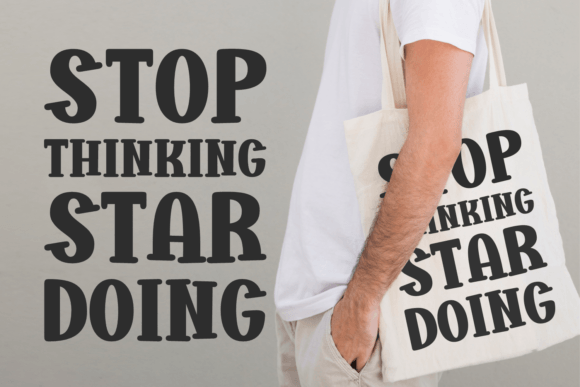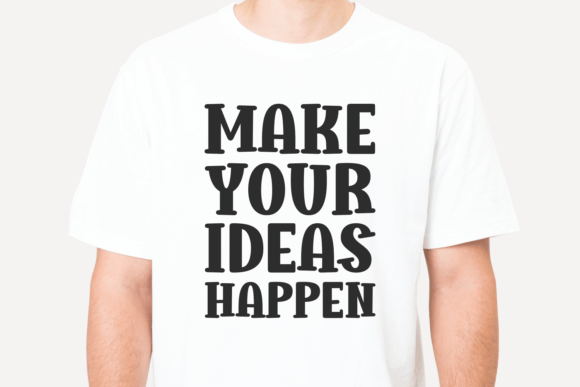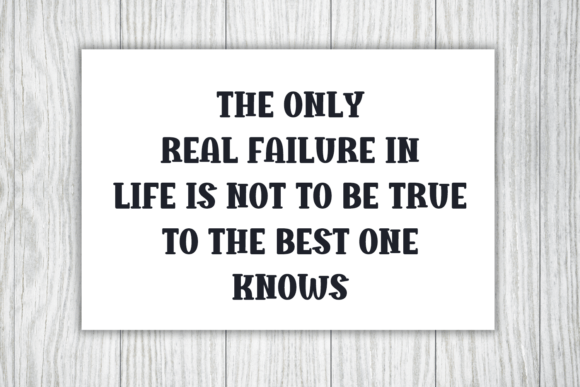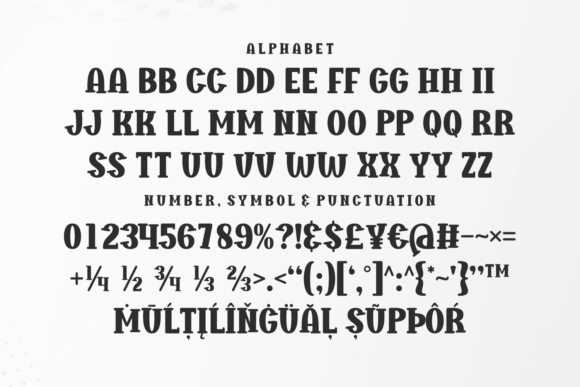
Unleash Your Artistic Flair with Handmade Capital: A Whimsically Robust Slab Serif Font
In the world of typography, a font can make or break a design. It’s the perfect blend of form and function, aesthetics and readability. For designers and crafters looking to add a dash of personality to their projects, Handmade Capital is a game-changer. This whimsically robust slab serif font is designed to turn heads and spark creativity.
The Charm of Handmade Capital
Handmade Capital is more than just a font – it’s an experience. Each wide character is impressively bold, punctuated by its hearty serifs that captivatingly catch the eye. The font’s unique charm lies in its ability to balance playfulness with sophistication, making it perfect for a wide range of design applications.
Ideal for Commanding Headlines and Quirky Typography
Whether you’re looking to create attention-grabbing headlines, quirky t-shirt typography, or distinctive product labels, Handmade Capital is the perfect choice. Its bold and playful nature makes it ideal for designs that need to stand out from the crowd. Imagine using Handmade Capital to create:
- Eye-catching headlines that draw readers in
- Quirky t-shirt designs that showcase your brand’s personality
- Attention-grabbing banners that stop people in their tracks
- Distinctive product labels that reflect your brand’s unique voice
Adding a Touch of Playfulness to Your Designs
Handmade Capital invites you to add an irresistible touch of playfulness to your designs. Its delightful charm and whimsical nature make it perfect for designers and crafters who want to inject a bit of fun and personality into their work. With Handmade Capital, you can:
- Create designs that are both bold and beautiful
- Add a touch of whimsy to your typography
- Make your designs stand out with a unique and eye-catching font
The Benefits of Using Handmade Capital
So why choose Handmade Capital over other fonts? Here are just a few benefits of using this amazing font:
- Unique and distinctive: Handmade Capital is a one-of-a-kind font that will set your designs apart from the rest.
- Highly versatile: This font can be used for a wide range of design applications, from headlines and banners to t-shirt typography and product labels.
- Easy to read: Despite its bold and playful nature, Handmade Capital is highly readable, making it perfect for designs that need to communicate a message.
Tips for Getting the Most Out of Handmade Capital
To get the most out of Handmade Capital, here are a few tips:
- Experiment with different colors and textures: Handmade Capital looks amazing in a variety of colors and textures, so don’t be afraid to get creative.
- Use it sparingly: While Handmade Capital is a beautiful font, it can be overwhelming if used too much. Use it sparingly to create emphasis and draw attention.
- Pair it with other fonts: Handmade Capital pairs well with a range of other fonts, so don’t be afraid to experiment with different combinations.
Handmade Capital is a game-changing font that’s perfect for designers and crafters looking to add a dash of personality to their projects. Its unique blend of playfulness and sophistication makes it ideal for a wide range of design applications, from commanding headlines and quirky t-shirt typography to attention-grabbing banners and distinctive product labels. With its delightful charm and whimsical nature, Handmade Capital is sure to inspire your creativity and take your designs to the next level.
So why wait? Unleash your artistic flair with Handmade Capital and discover a world of creative possibilities.